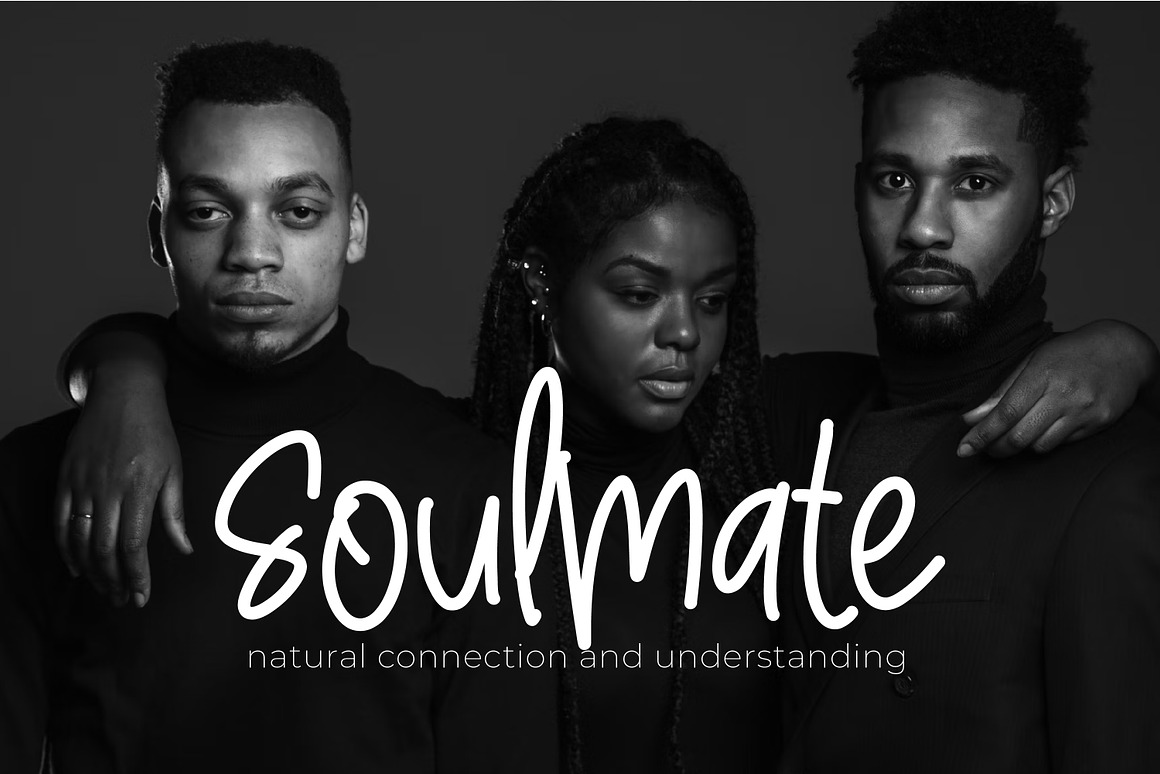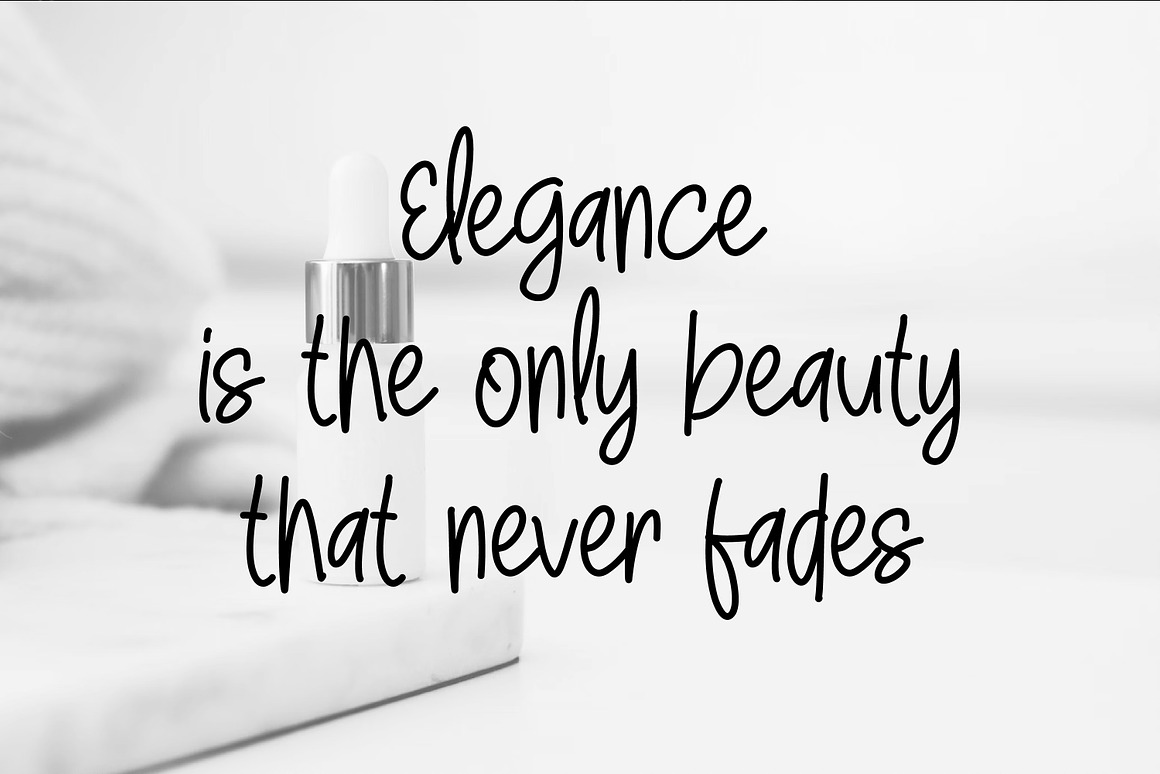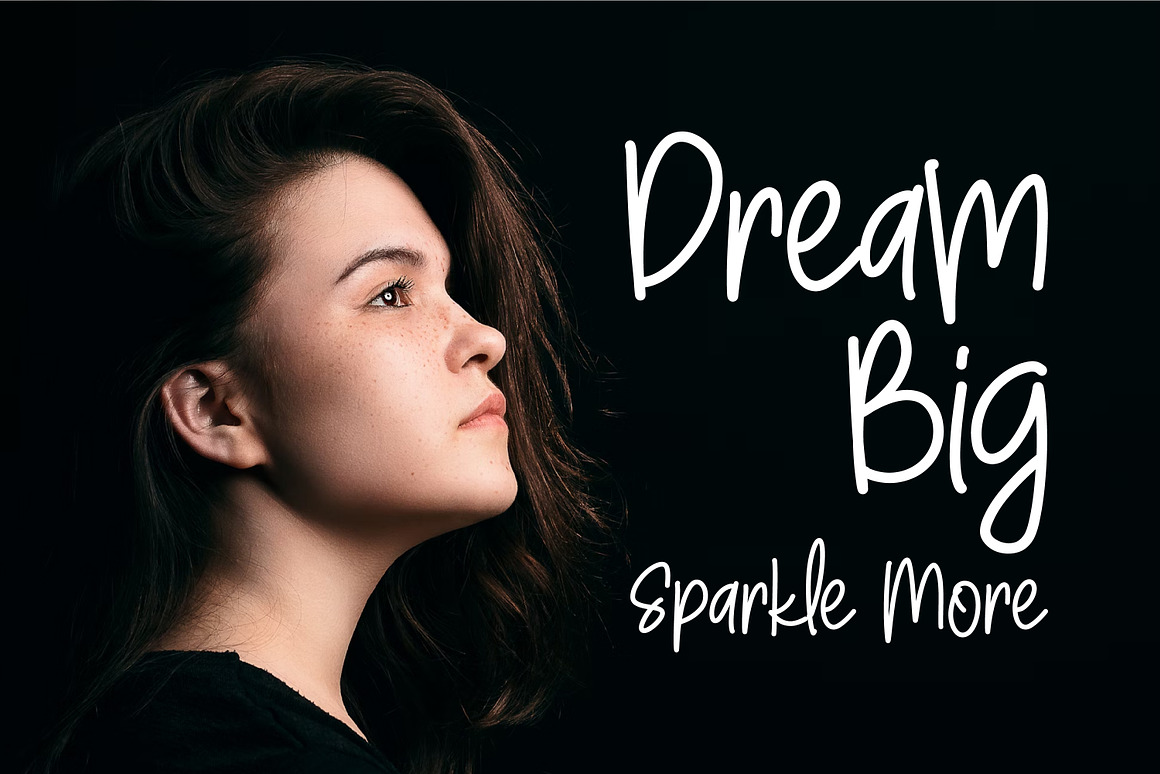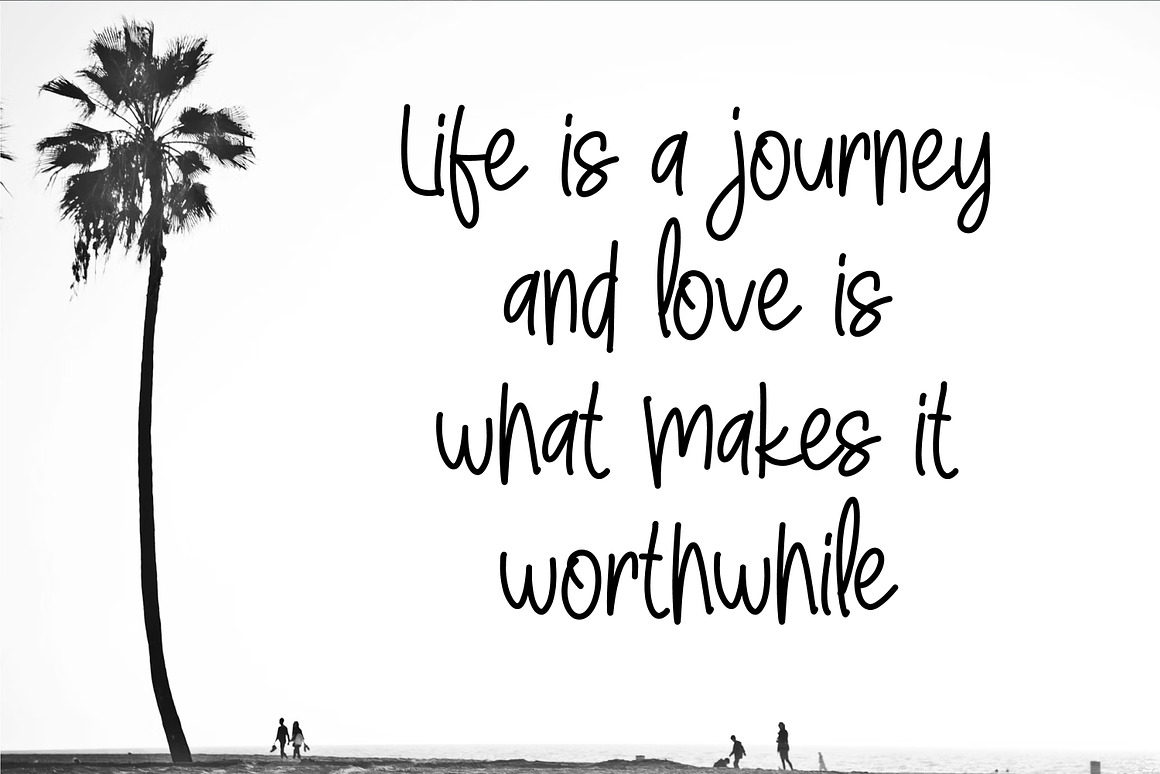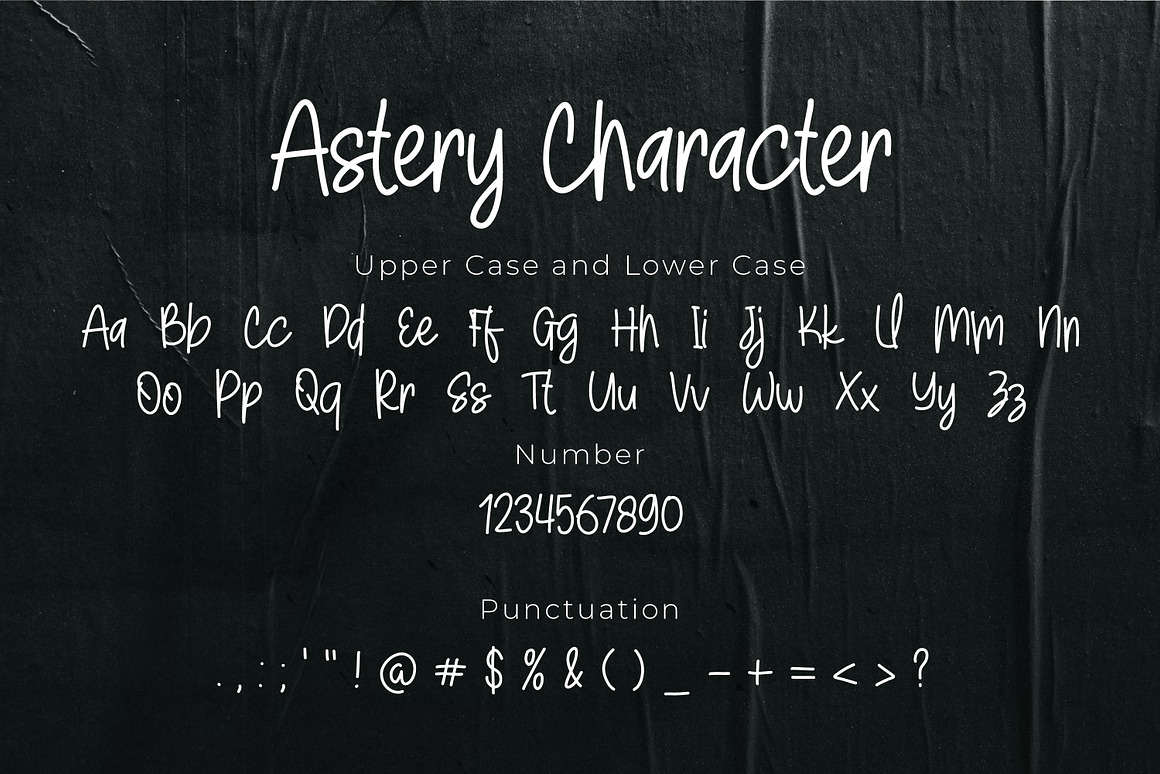
Astery Handwritten Script Font
Introducing Astery, a beautifully crafted handwritten signature and script font designed to add an elegant and personal touch to your projects. Whether you're creating logos, wedding invitations, or branding materials, Astery's fluid strokes and graceful curves deliver a sophisticated look that stands out.